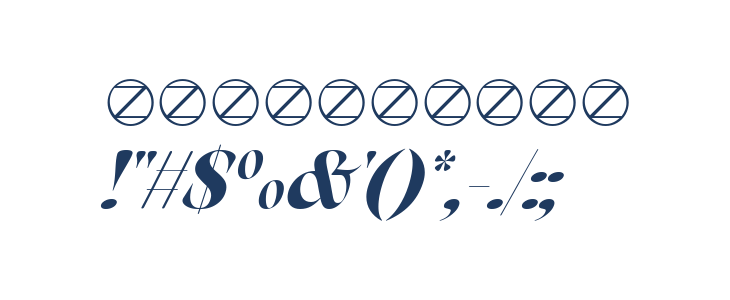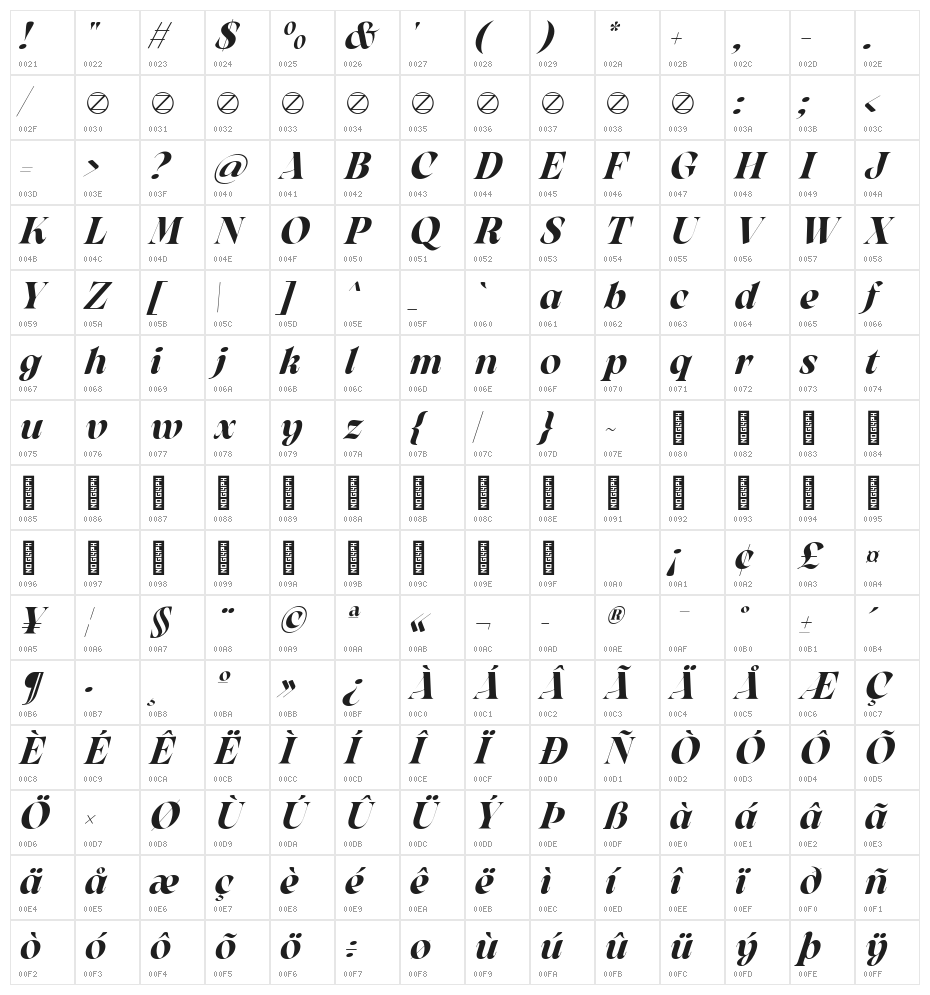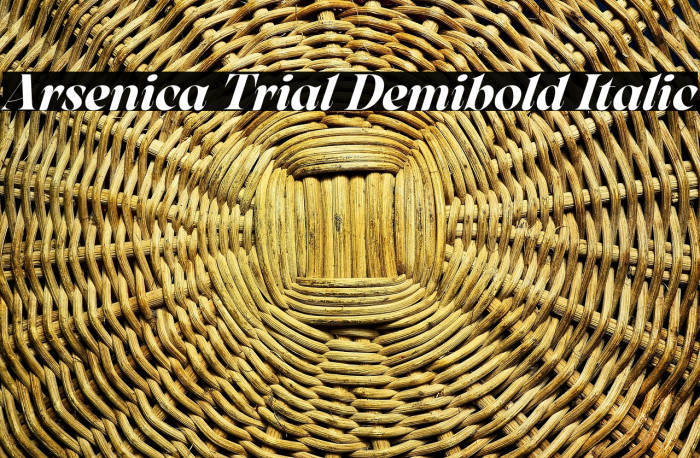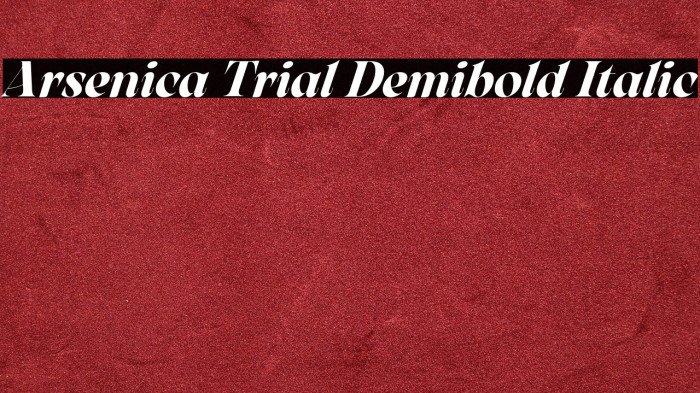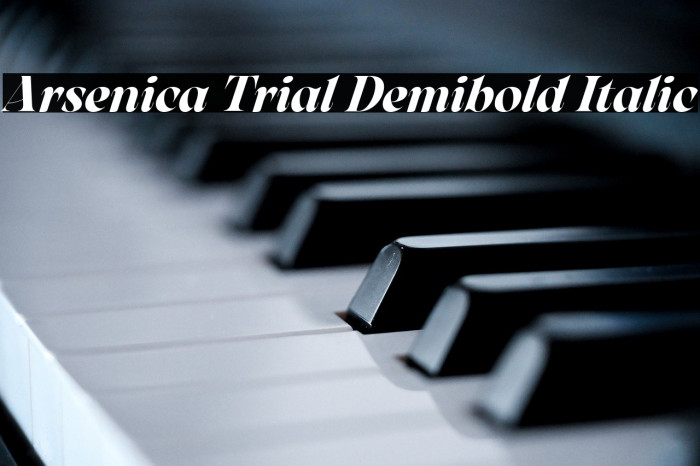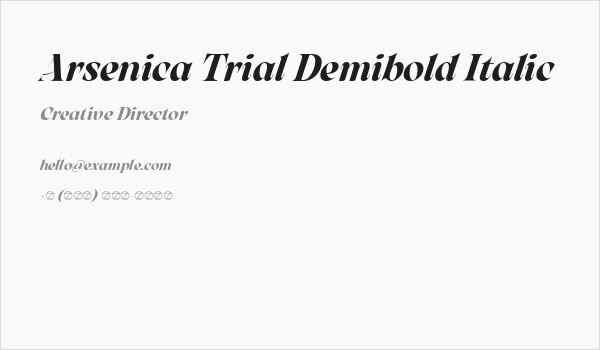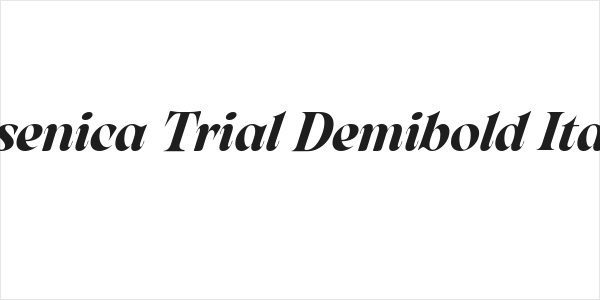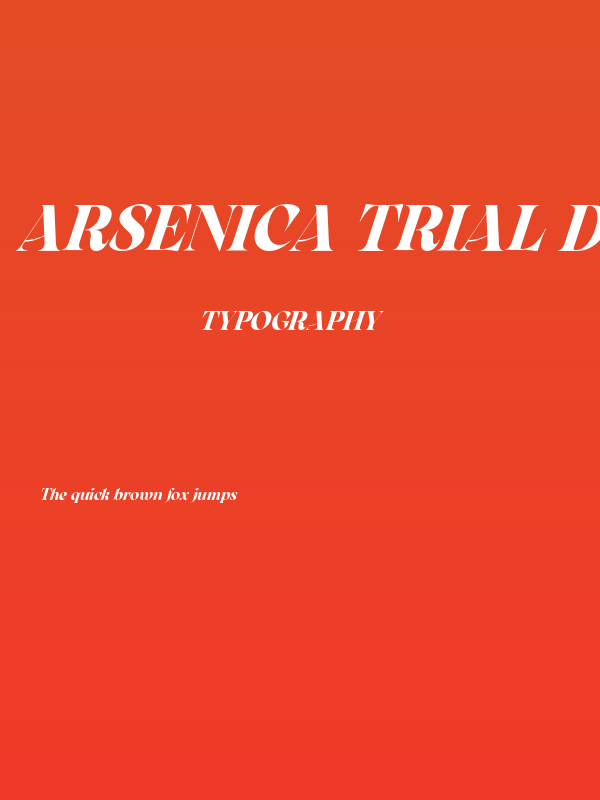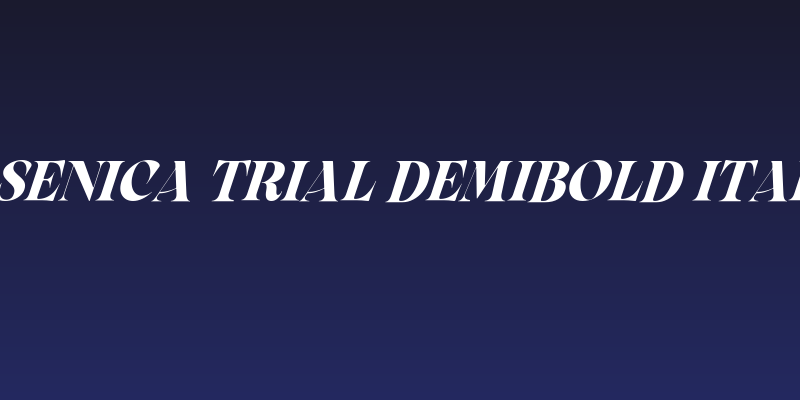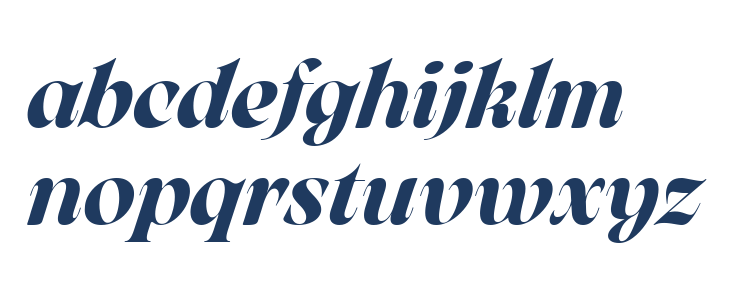
Arsenica Trial Demibold Italic Font
Arsenica Trial Demibold Italic Description
This font exhibits a sophisticated and elegant style with a modern twist. The characters are italicized, giving them a dynamic and fluid appearance. The strokes are moderately thick, providing a bold presence without overwhelming the design. The uppercase letters are tall and commanding, while the lowercase letters maintain a smooth and consistent flow. The special characters are uniquely designed, adding a touch of creativity to the overall look. The font's contrast is medium, with noticeable differences between thick and thin strokes, enhancing readability and visual interest.